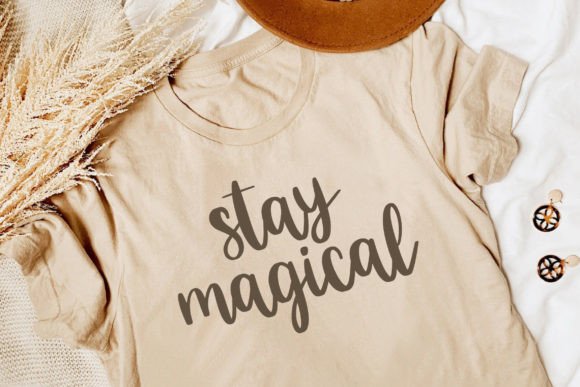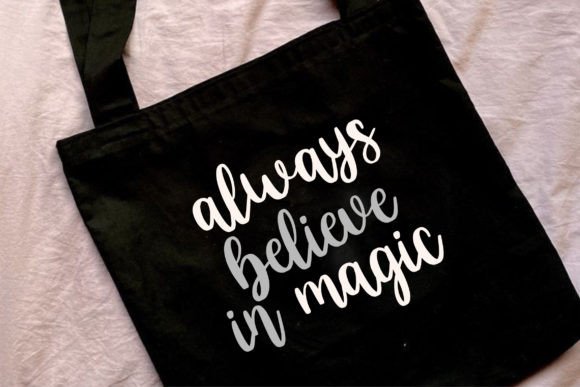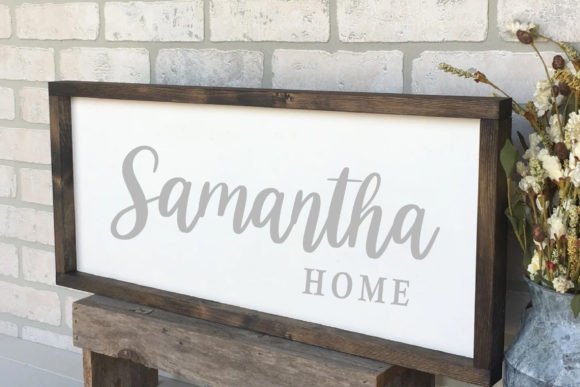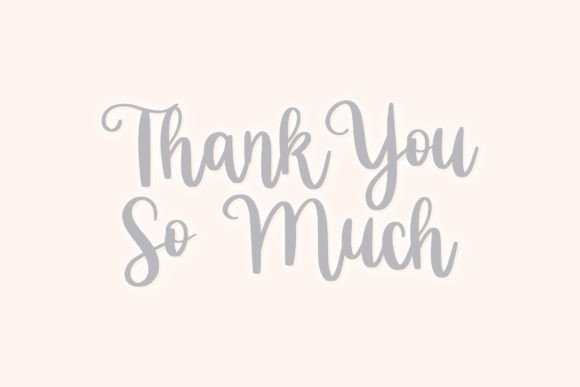
Introduction to Magic Sunshine Font
Have you ever been working on a creative project, and suddenly a spark of inspiration hits you? Maybe it’s a brainstorming session, or a quiet moment of solitude, but whatever it is, it’s the perfect time to bring your ideas to life. For designers, finding that perfect font can make all the difference in elevating a design from good to great.
That’s where the Magic Sunshine Font comes in – a beautiful, handwritten script font that’s perfect for adding a touch of whimsy to your next project. Whether you’re designing product packaging, creating a branding project, or just want to add some flair to your social media posts, this font is sure to bring a smile to your face and a touch of magic to your design.
Key Features of Magic Sunshine Font
- High-quality, professional font design for creative projects, ideal for use as a design resource.
- Unique, hand-crafted design with a transparent background, perfect for creating eye-catching graphics and visual elements.
- Includes a range of glyphs and characters, making it suitable for use in a variety of creative contexts, from logos to typography.
- Designed with a high level of detail and precision, resulting in a crisp, clear appearance at resolutions up to 300 DPI.
Honest Review: Magic Sunshine Font
I recently stumbled upon the Magic Sunshine Font while searching for a design resource to enhance my creative project. The font’s name caught my attention, and I was eager to see if it lived up to its promise.
- ✨ The font’s high-quality design is visually appealing, with a friendly and approachable feel that’s perfect for various creative projects.
- ✨ The Magic Sunshine Font comes in a variety of styles, including a transparent background option that makes it easy to layer over other design elements.
- ⚠️ The font’s character set is limited, which may not be suitable for longer blocks of text or professional applications.
- ⚠️ The Magic Sunshine Font may not be the best choice for designs that require a more formal or serious tone.
Overall, the Magic Sunshine Font is a great addition to any designer’s toolkit. While it may have some limitations, its high-quality design and versatility make it a valuable resource for creative projects.
Tips for Getting the Most Out of Magic Sunshine Font
To get the most out of Magic Sunshine Font, use it in conjunction with a transparent background to create a stunning visual effect. Experiment with different font sizes, colors, and combinations to find the perfect look for your design project.
The Magic Sunshine Font is ideal for a variety of creative projects, including social media graphics, blog posts, and marketing materials. Its bright and cheerful design makes it perfect for spring and summer-themed projects, while its versatility allows it to be used in a range of other contexts.